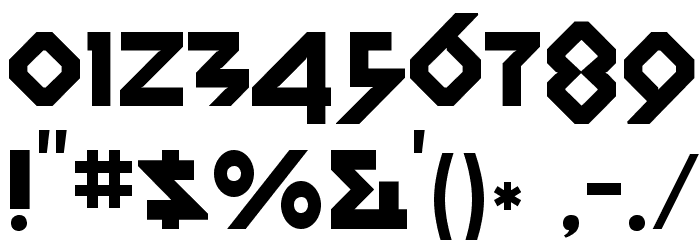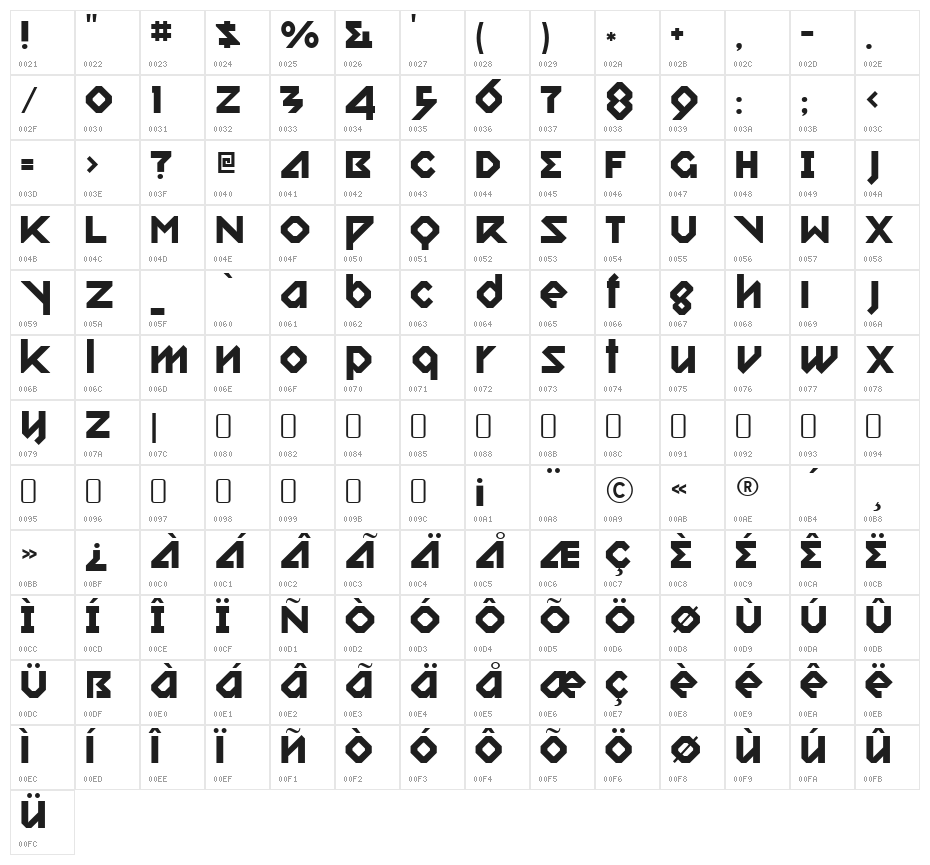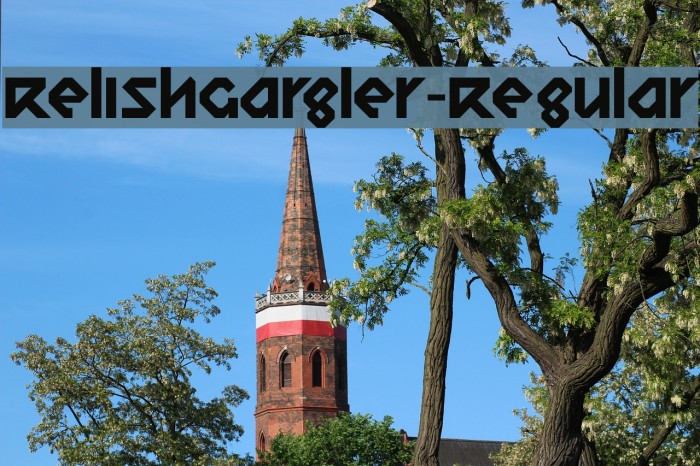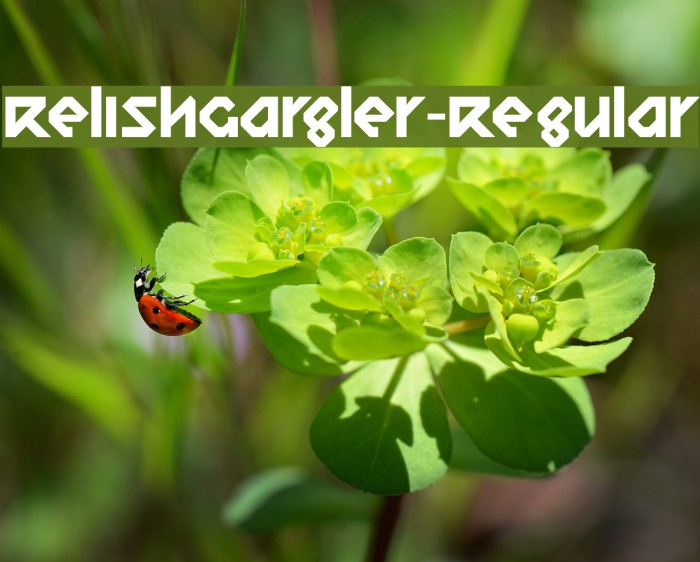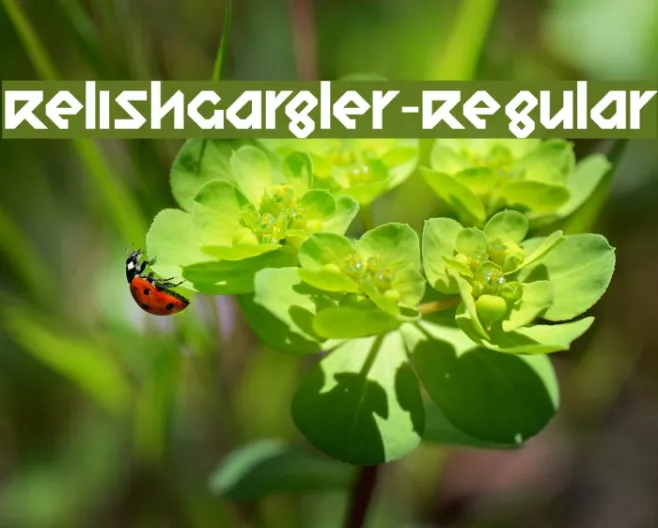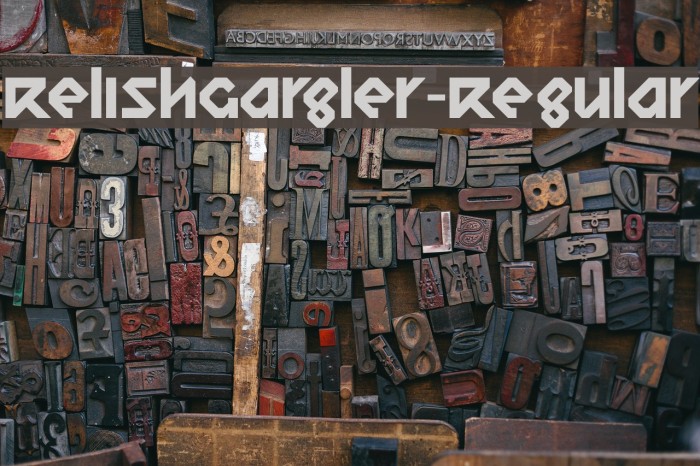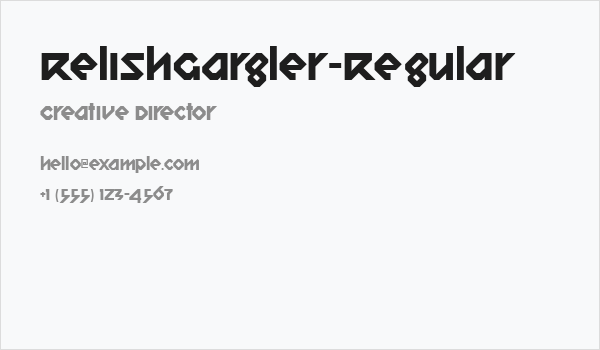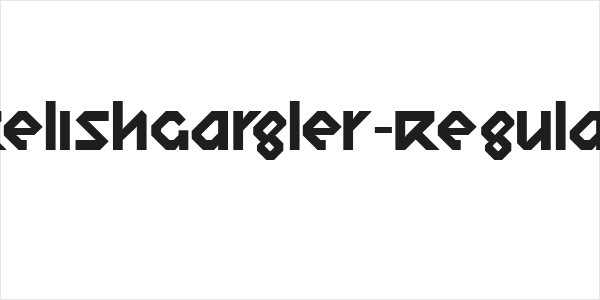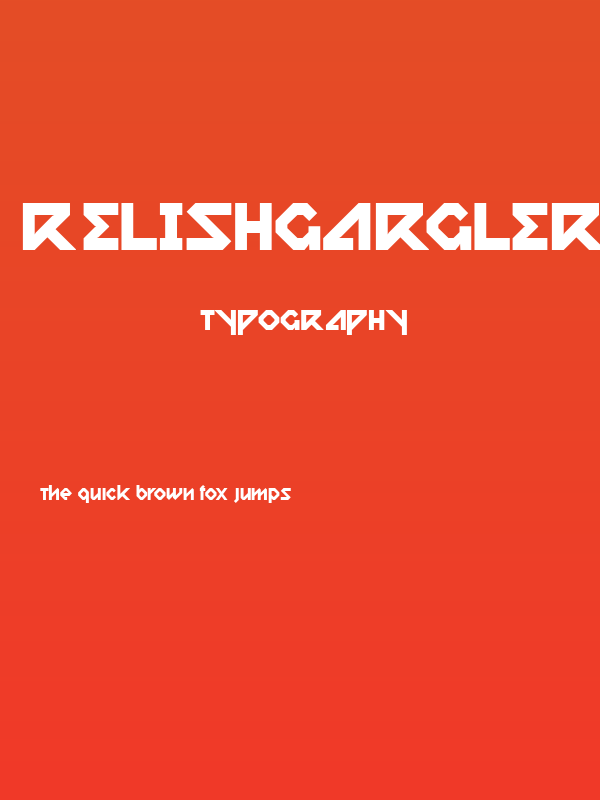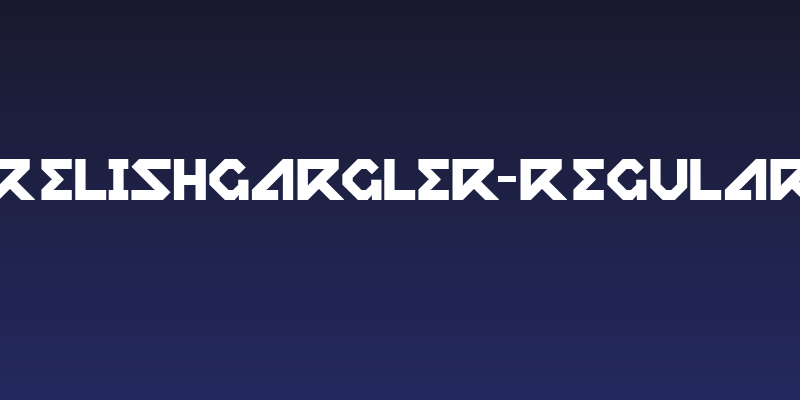
RelishGargler-Regular Font
RelishGargler-Regular Description
This font features a bold and geometric design with sharp angles and a futuristic aesthetic. The characters are constructed with a blocky, angular style that gives a sense of strength and modernity. The uppercase and lowercase letters maintain a consistent design, with unique cuts and edges that create a visually striking appearance. Numbers and special characters follow the same geometric theme, ensuring uniformity across all elements. The font's boldness and distinct style make it ideal for projects that require a strong visual impact.
| Proposed Projects | Ideal for branding, posters, video game graphics, and futuristic-themed designs. |